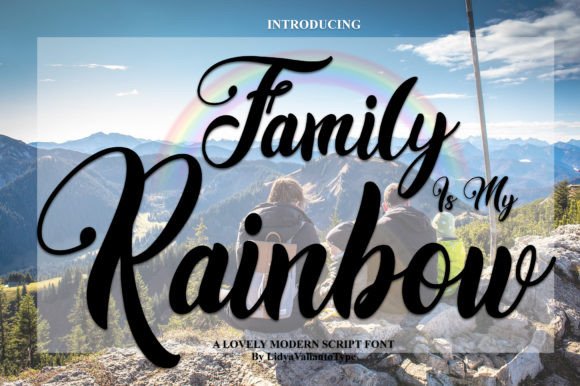
Step into the enchanting world of Family is My Rainbow, a mesmerizing handwritten font that dances across your screen like a kaleidoscope of vibrant colors. Its graceful curves and elegant flourishes evoke the warmth and joy of family, inviting you to create captivating designs that speak to the heart.
With Family is My Rainbow, your imagination knows no bounds. Unleash your creativity in product packaging projects, where every label becomes a work of art. Transform branding projects into unforgettable experiences that leave a lasting impression. Adorn magazine covers with a touch of whimsy and charm that draws readers in.
The possibilities are endless with Family is My Rainbow. Craft social media posts that shimmer with personality, capturing the attention of your followers. Create wedding invitations that are as unique and special as the bond you share. Express your love and gratitude in handwritten letters that become cherished keepsakes.
Family is My Rainbow is more than just a font; it's a gateway to a world of endless inspiration. Its heartfelt strokes have the power to evoke cherished memories and create designs that touch the soul. Embrace the magic of Family is My Rainbow and let your creativity soar.